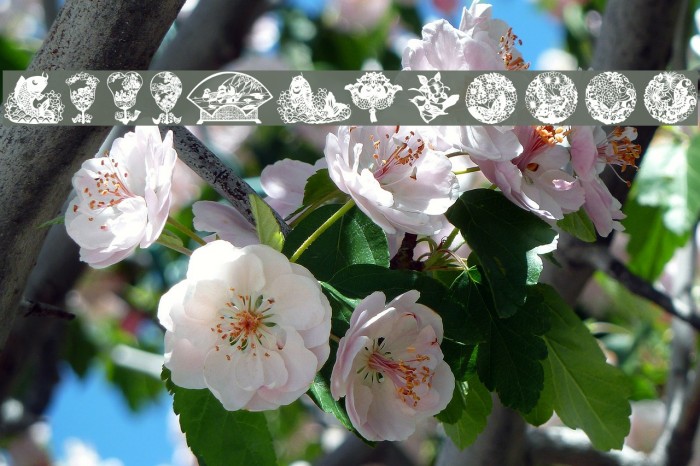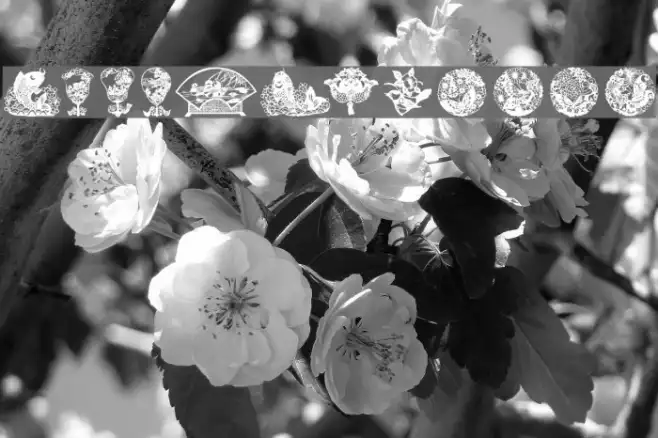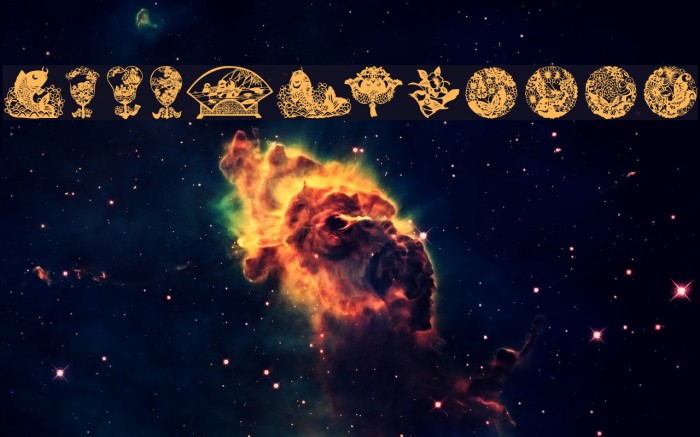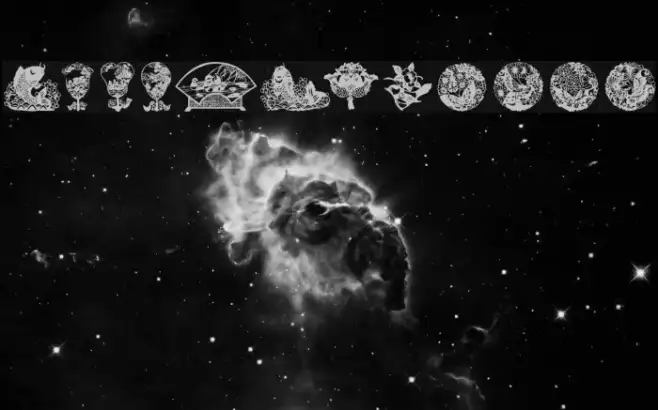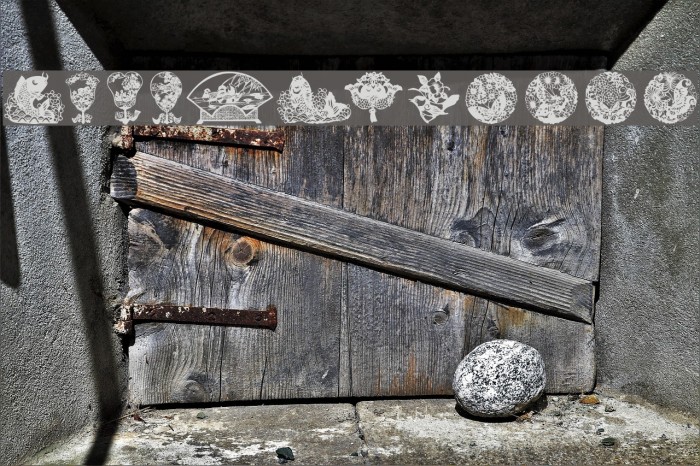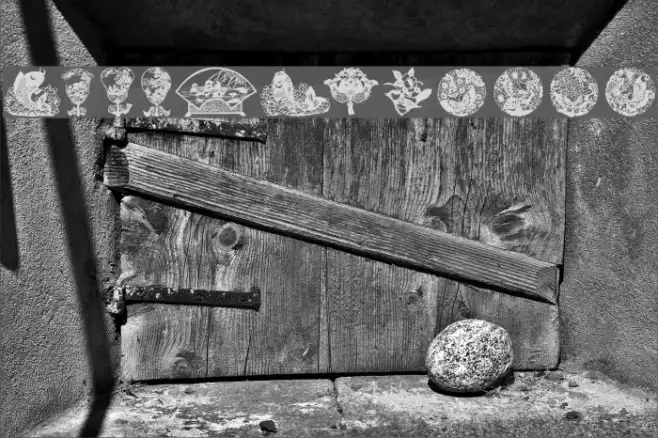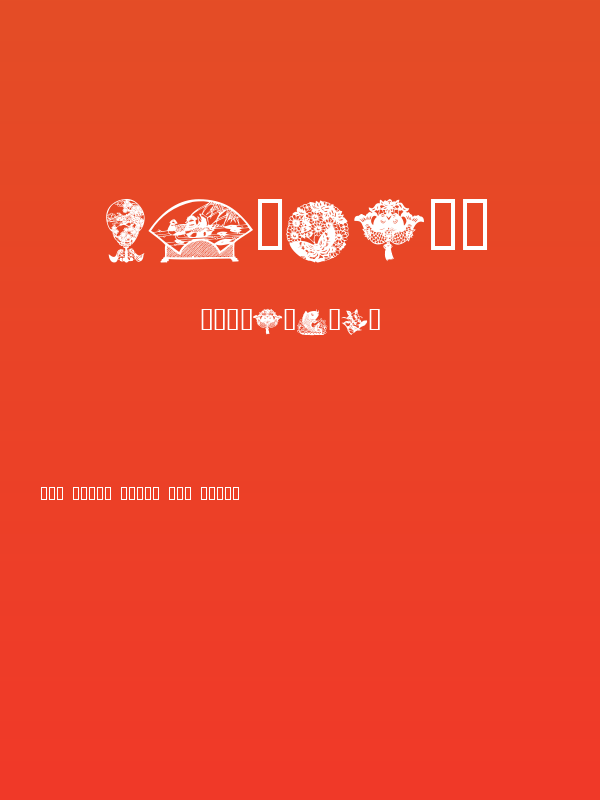
Design2 Font
Design2 Description
Highly decorative font featuring intricate illustrations and ornamental motifs for each character, resembling vintage or folk art designs. Each glyph is unique and visually complex, making it more of an illustrative display typeface than a traditional text font.
| Overall Style | Decorative, Vintage, Artistic |
| Use Case | Logos, Headlines, Decorative elements |
| Proposed Projects | Book covers, posters, invitations, branding for artisanal or vintage-themed products, decorative headings. |